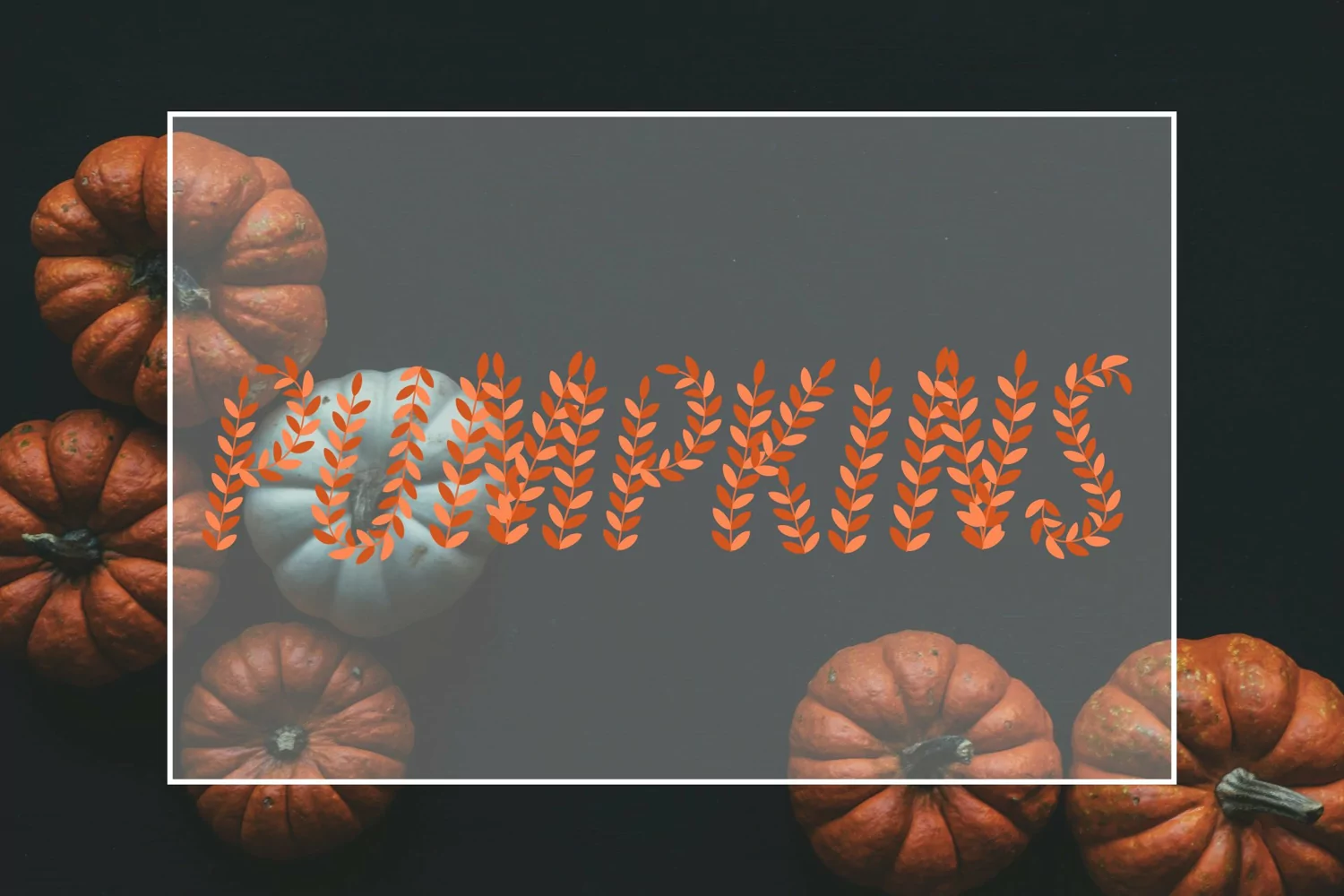
Autumn Leaves SVG Font.
Autumn Leaves is an incredibly unique and distinct decorative font, featuring sweet leaves as ornaments.
Fall in love with its incredibly versatile style and use it to create lovely designs!